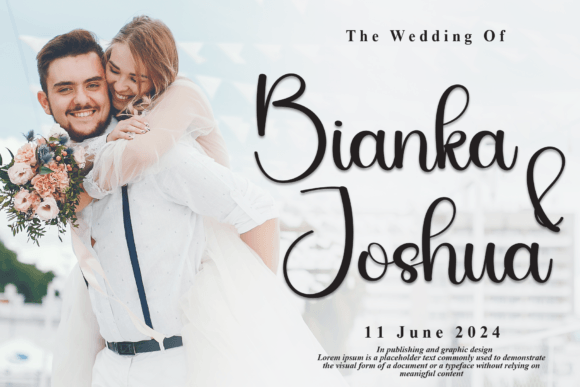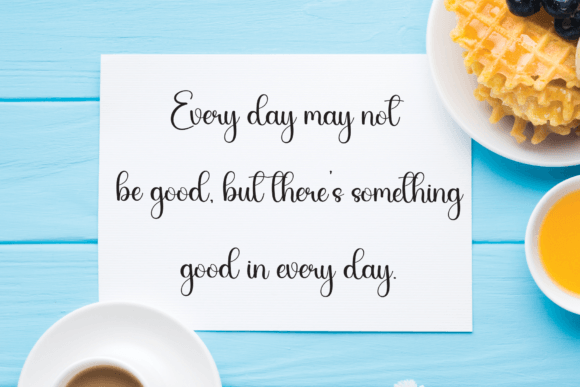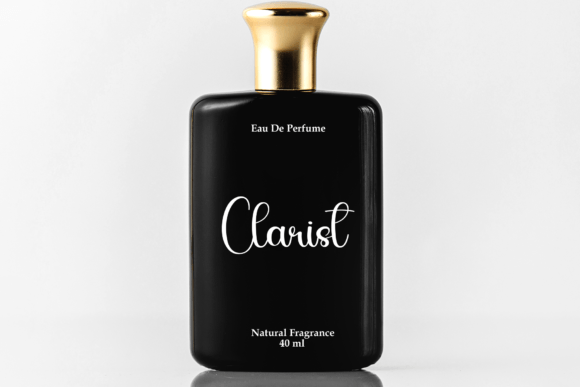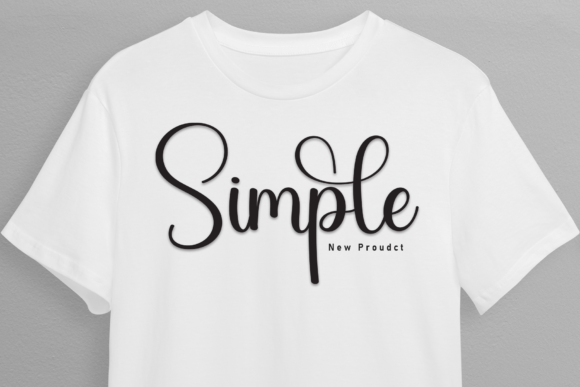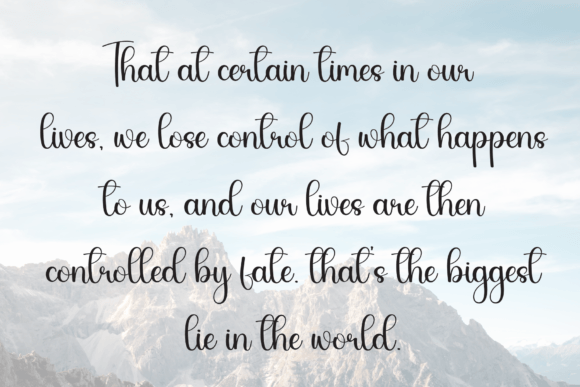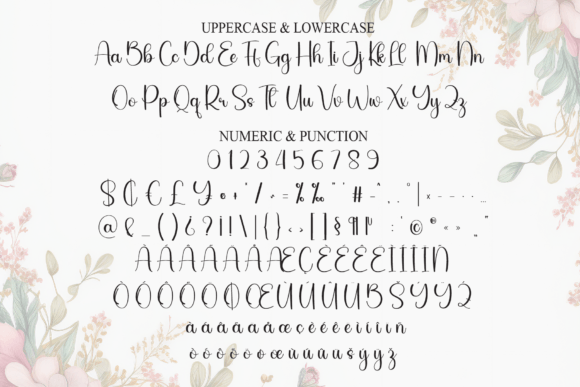
The Ultimate Guide to Everything Font: Elevate Your Designs with Elegant Handwriting
I’ll never forget the time I was working on a wedding invitation project, and my client asked for a font that looked like elegant, stylish handwriting. I scoured the internet, tried countless fonts, but nothing seemed quite right. That was until I stumbled upon Everything Font. It was love at first sight! 💕 The letters flowed smoothly, with a natural, artistic feel that made my text look unique and special. In this article, I’ll share my experience with Everything Font, its features, and how to make the most of it in your designs.
Here’s what I’m obsessed with about Everything Font:
- ✨ Elegant and stylish handwriting: It’s perfect for creating personal and warm designs that feel like they were written with love.
- ✅ Smooth lettering: The font flows effortlessly, making it ideal for invitations, greeting cards, or social media posts.
- 💫 Unique and special: The artistic feel of Everything Font sets it apart from other fonts, making your text truly stand out.
Now, I’m not going to sugarcoat it – there are a few quirks to be aware of:
- 🤔 Limited use in small sizes: Everything Font shines in larger sizes, but it can get a bit tricky to read in smaller sizes.
- ⚠️ Requires OpenType features: To get the most out of Everything Font, you’ll need to use it with software that supports OpenType features.
The Story Behind Everything Font
Everything Font was designed with love and care by a talented type designer who wanted to create a font that felt like elegant, stylish handwriting. The goal was to craft a font that would make designers feel like they’re writing with a pen, rather than typing on a keyboard. The result is a beautiful, flowing script font that’s perfect for creating personal and warm designs.
| Is Everything Font suitable for body text? | While Everything Font is beautiful, it’s best suited for display text or short paragraphs. It may not be the best choice for long-form body text. |